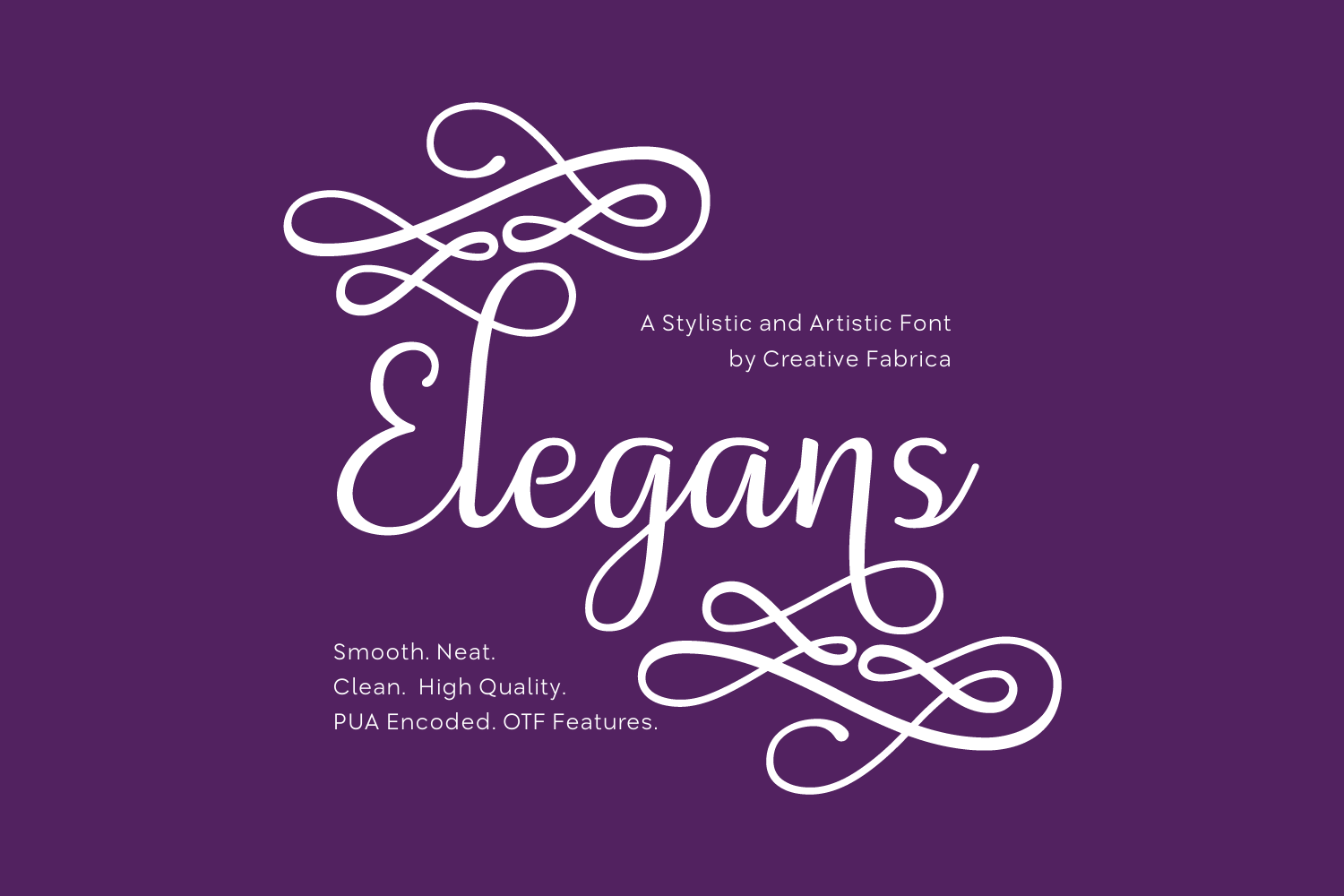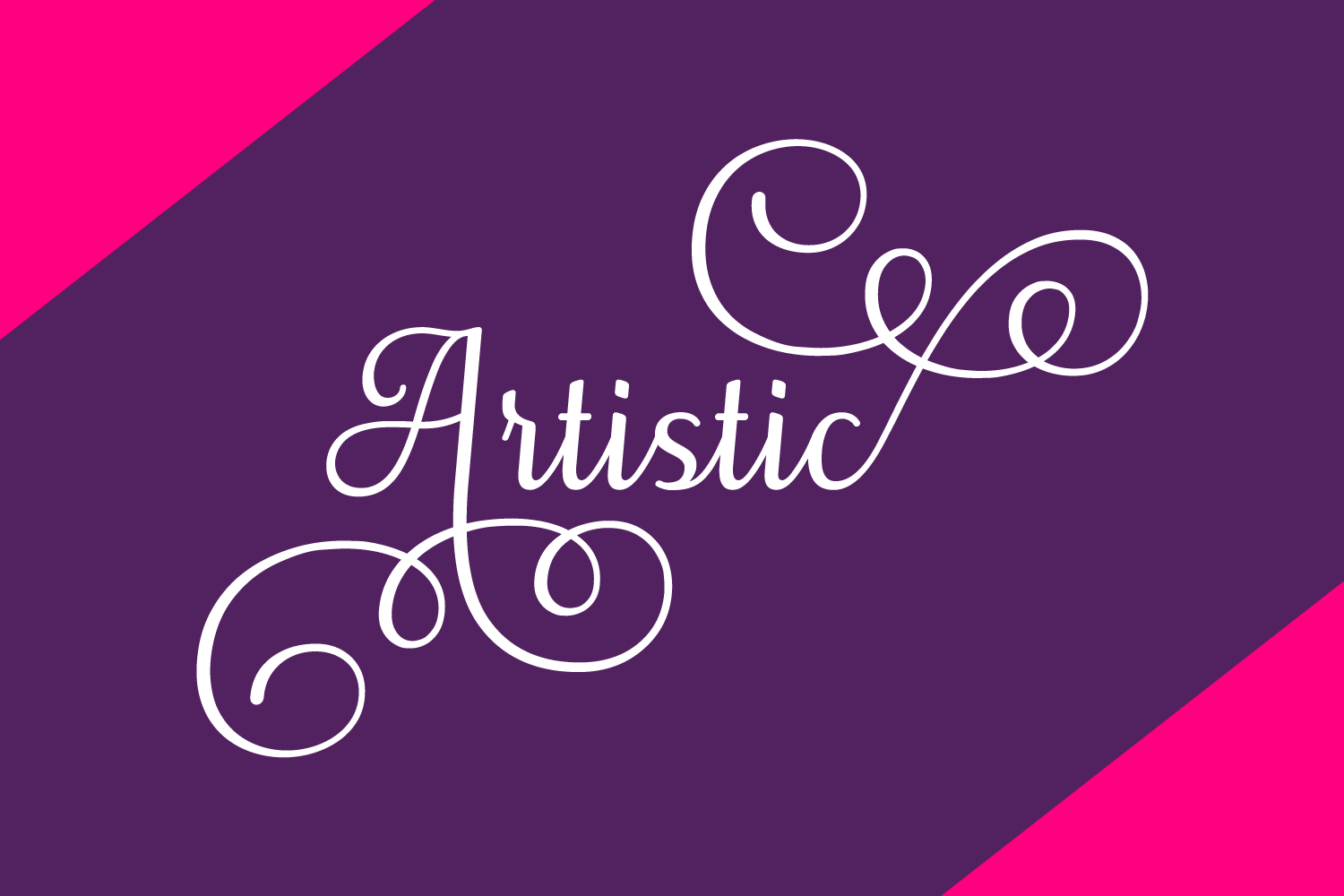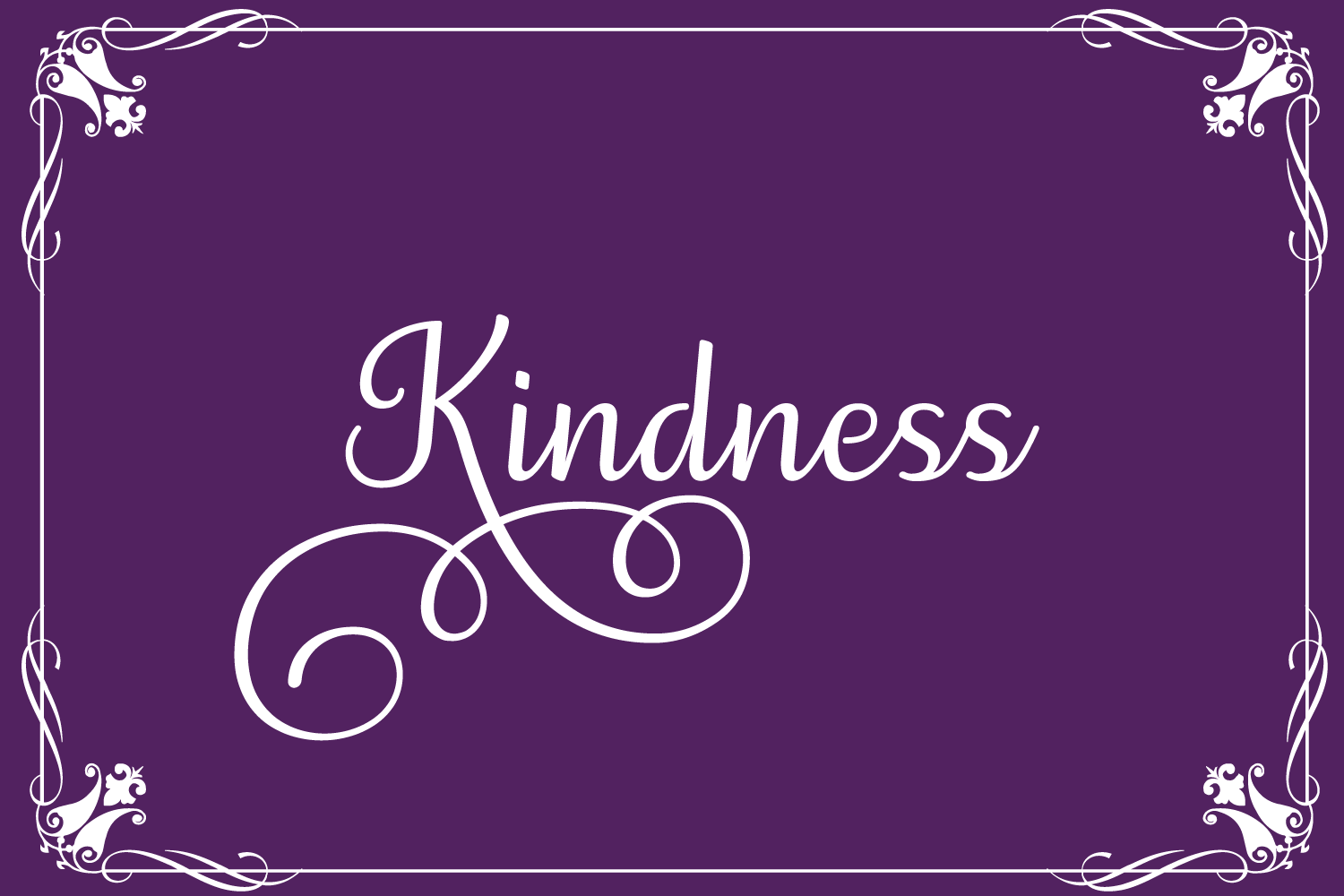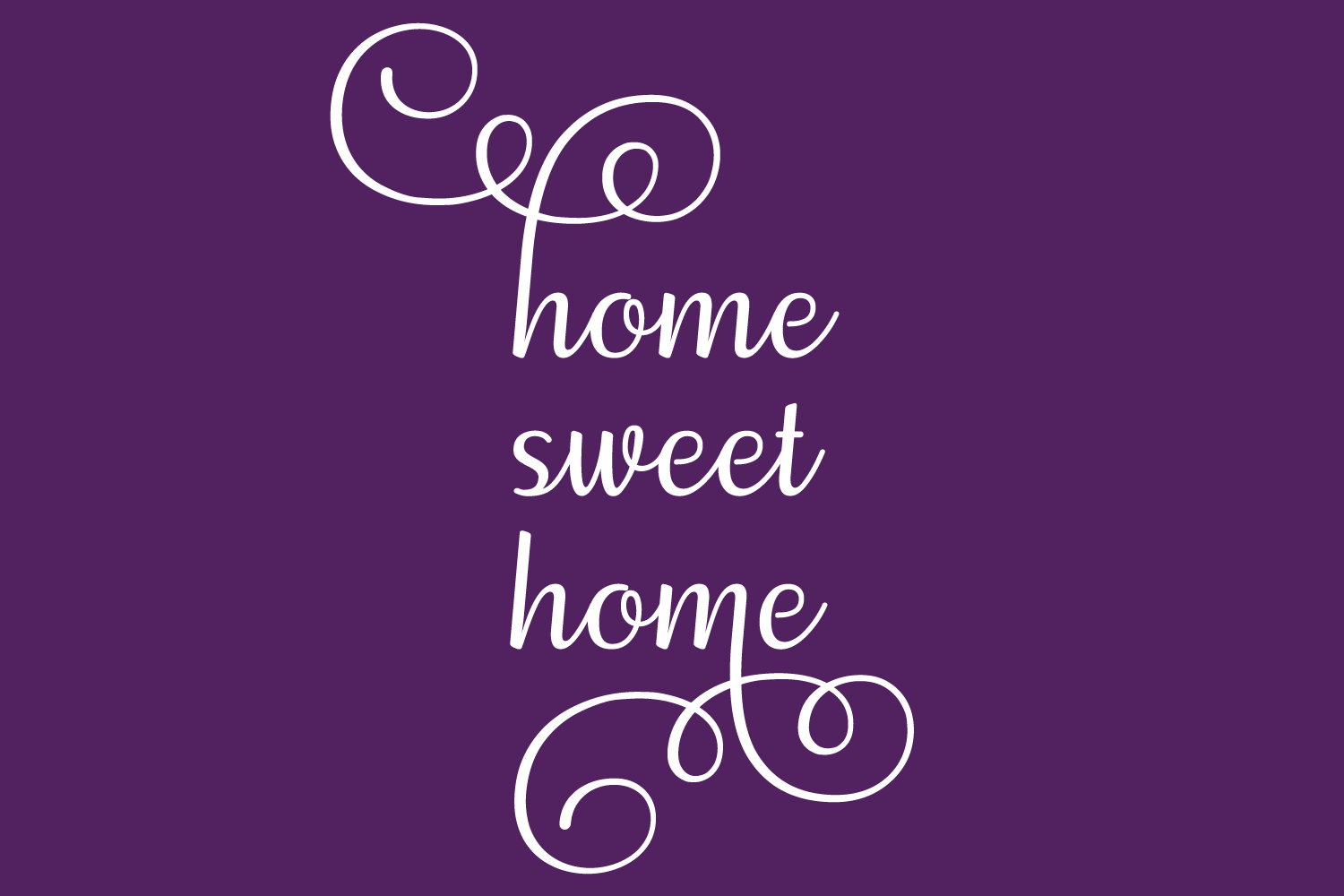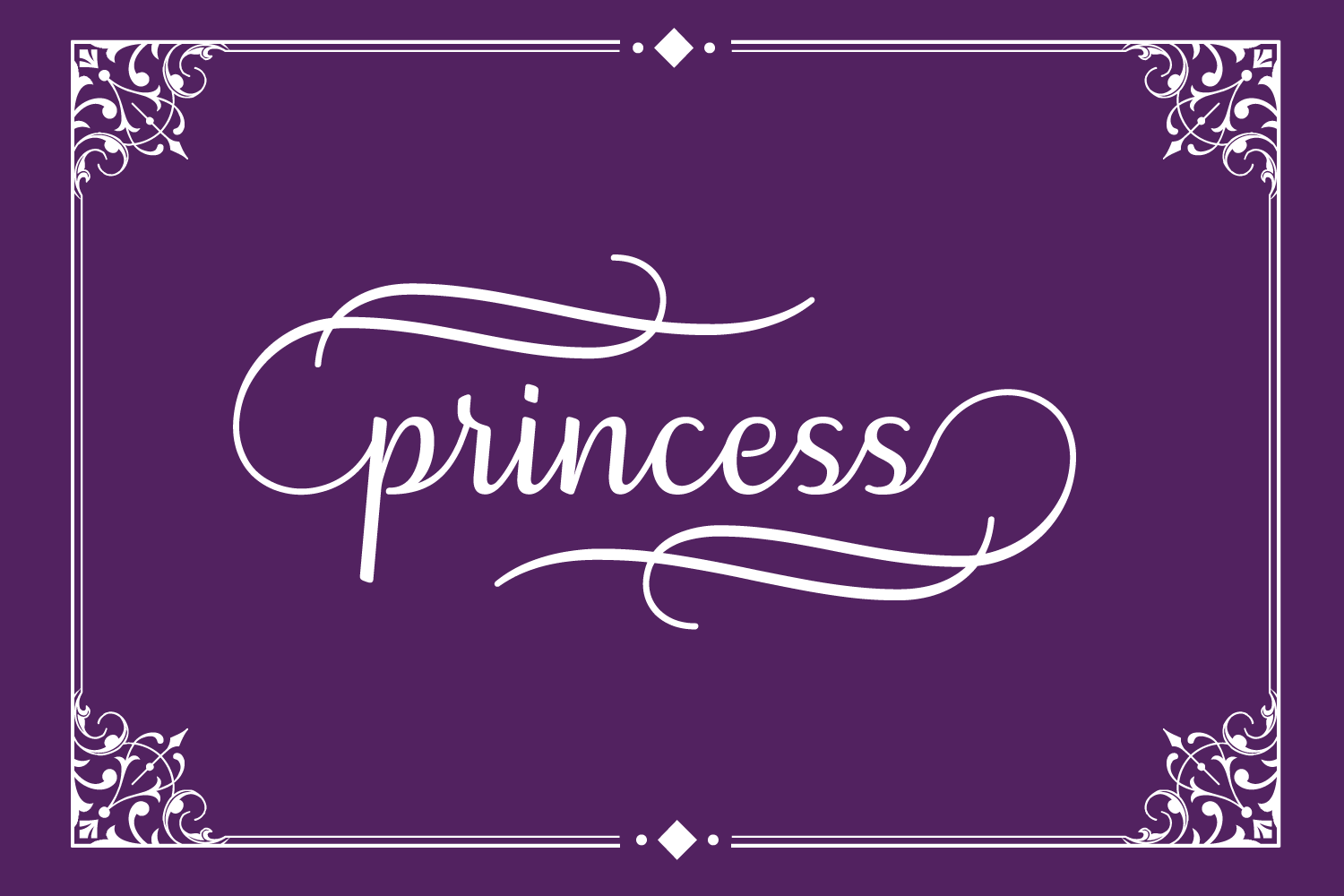
Introduction to Elegans Font
Elegans, a smooth script created by Creative Fabrica.
Elegans is a handwritten slant It allows you to add a very elegant, personal touch to your projects.